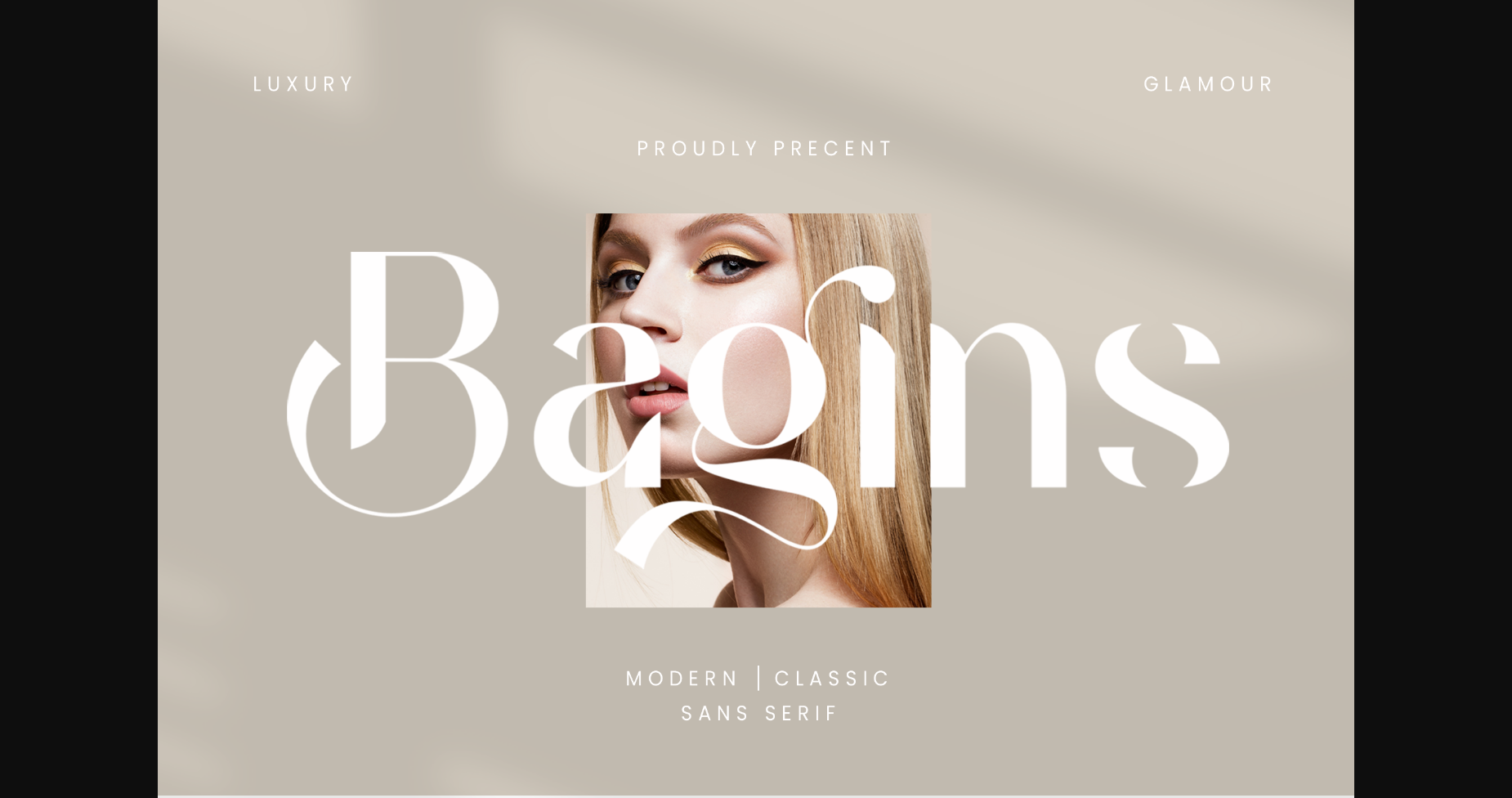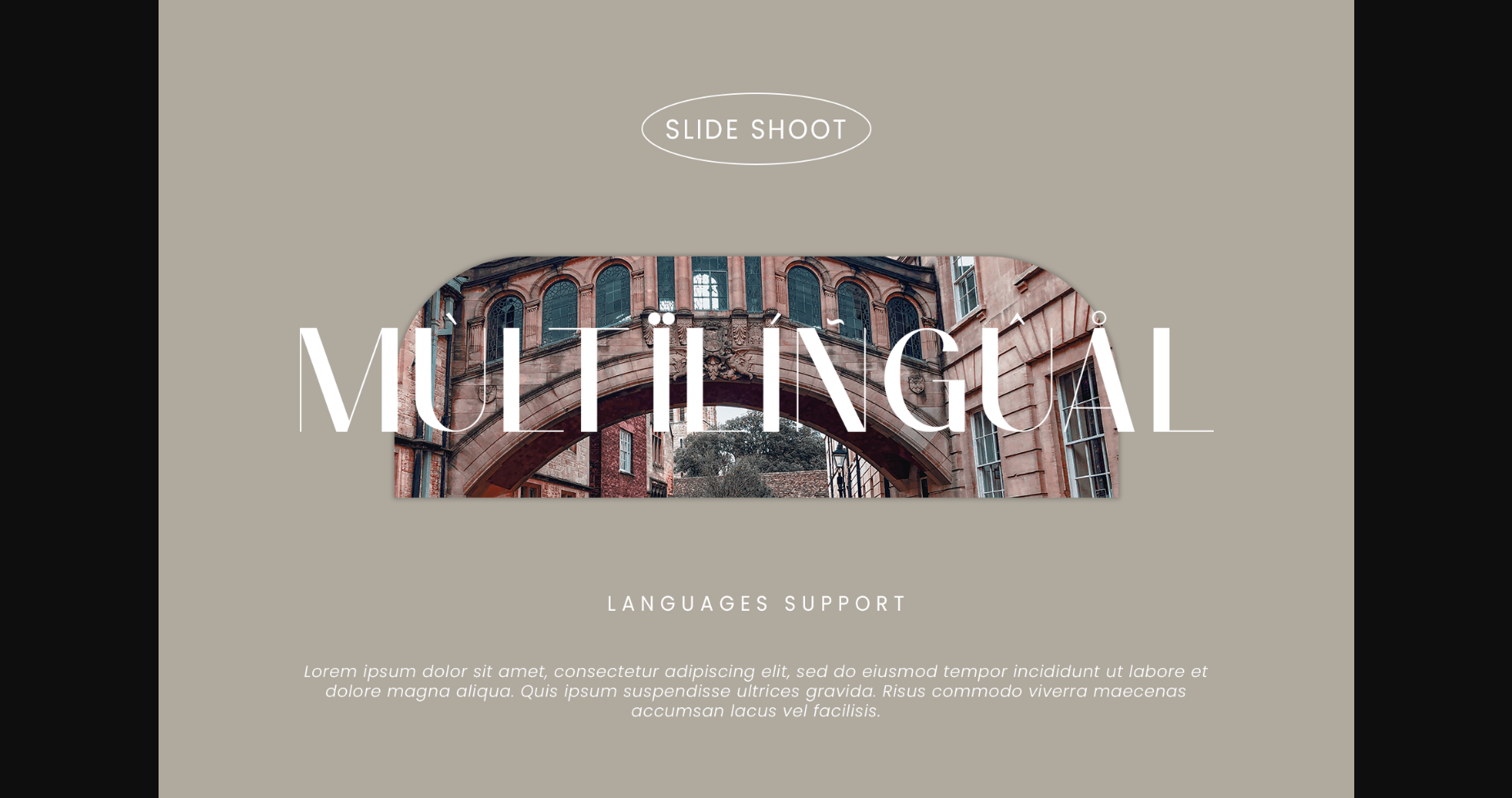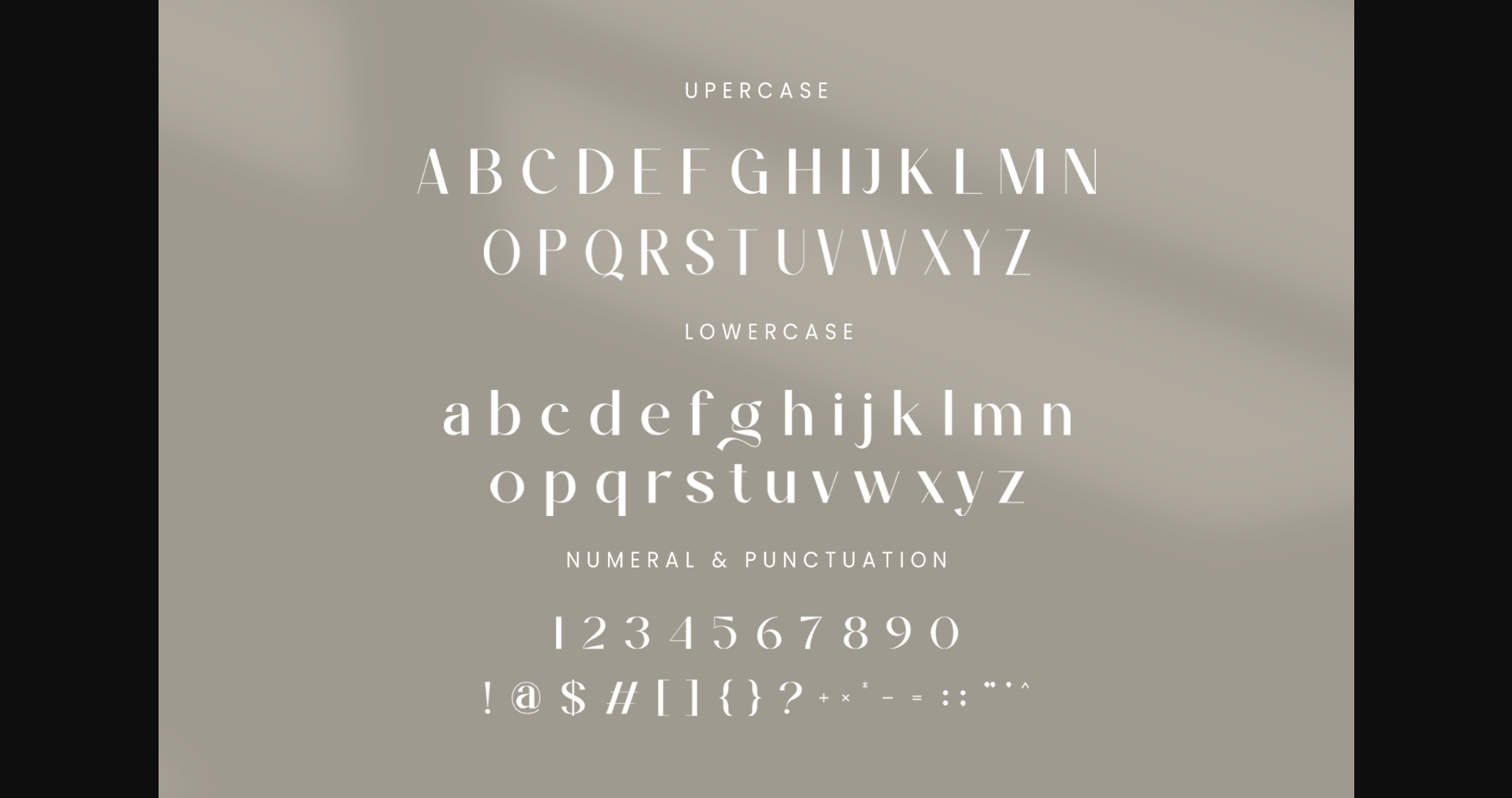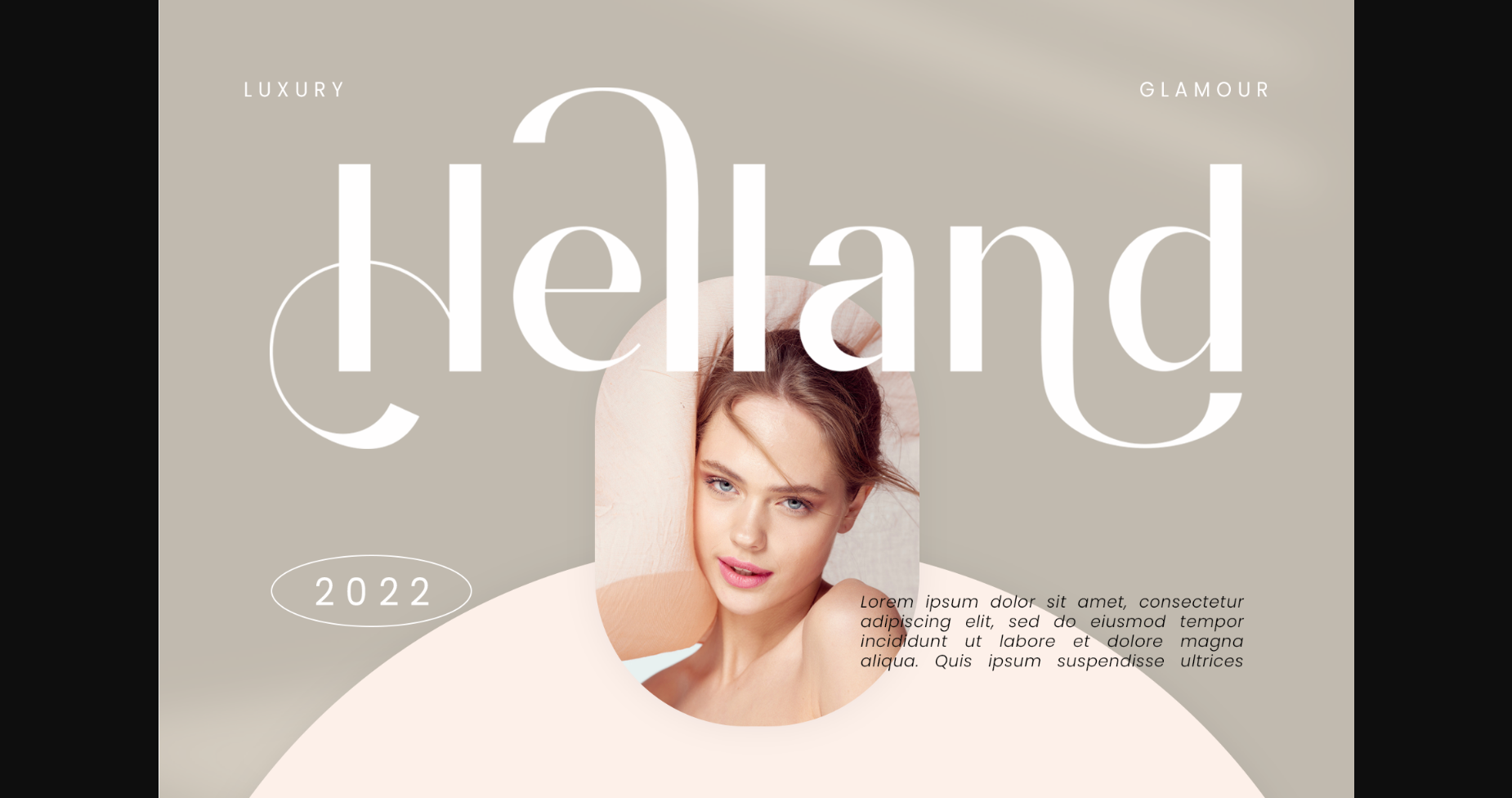
About Bagins Font
Bagins is a balanced, smooth, elegant, and stylish sans-serif font. The font exudes sophistication and elegance. Its stylish alternations and ligatures make this font the perfect partner for any project. It is also PUA encoded which means you can access all of the glyphs and swashes with ease!